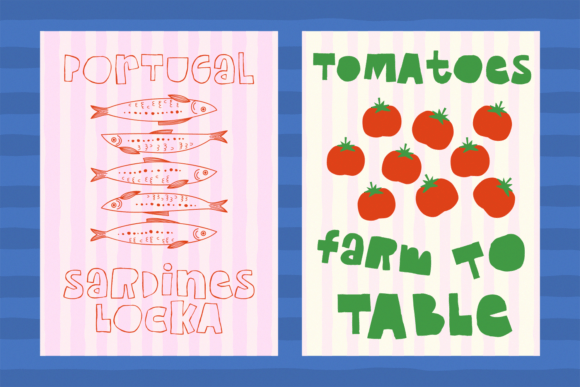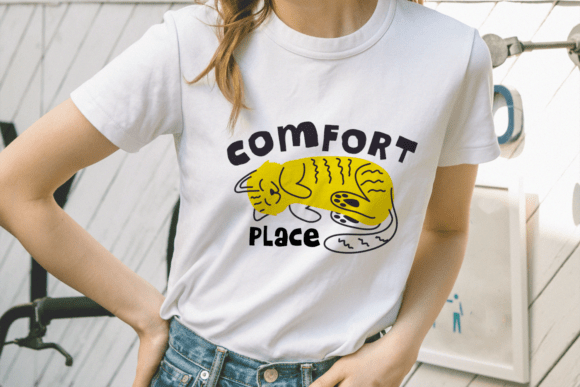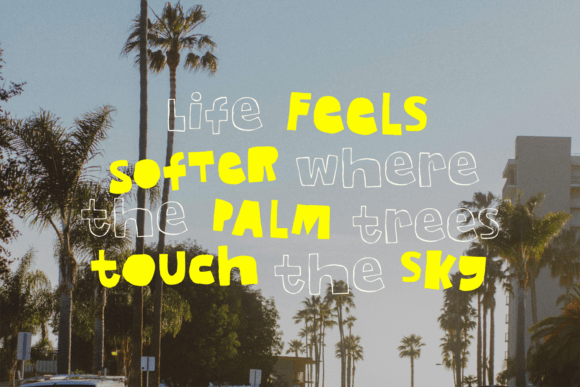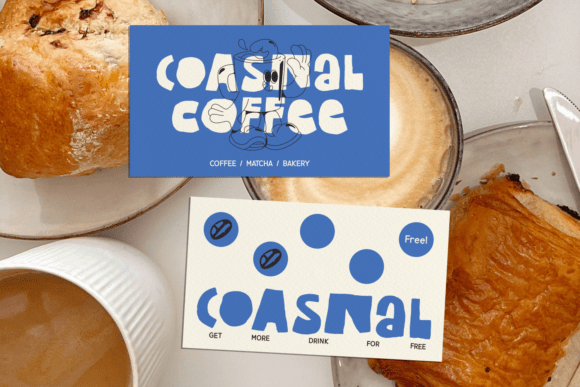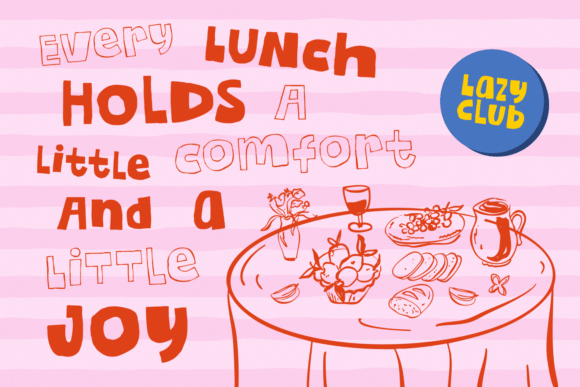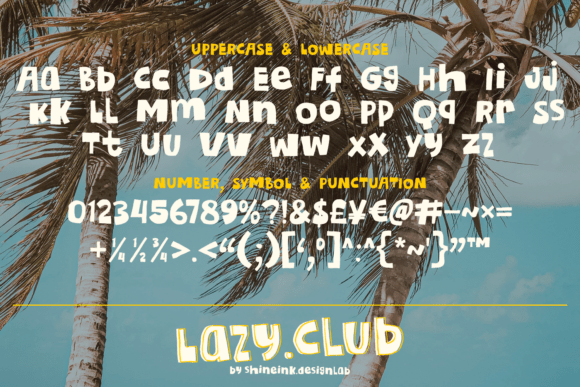
Introduction to Lazy Club Font
Have you ever stared at a blank design canvas, searching for the perfect font to bring your creative project to life? The struggle is real, but today, I’m excited to introduce you to a game-changing typography duo that will make your designs shine – the Lazy Club Font!
Imagine a font that embodies the carefree spirit of a lazy summer day, where imperfections become beautiful quirks and playful irregularities become the norm. This is exactly what the Lazy Club Font offers, with its fun, slightly irregular shapes and expressive letterforms that instantly add personality to your designs.
Key Features of Lazy Club Font
- High-quality design resource suitable for creative projects, including posters, flyers, and brochures.
- Features a unique, modern design with a transparent background, making it easy to use with any background image or color.
Honest Review: Lazy Club Font
I recently stumbled upon the Lazy Club Font while searching for a free download to elevate my creative project. I was drawn to its quirky, laid-back vibe, which seemed perfect for a casual design.
- ✨ The Lazy Club Font is highly customizable, allowing me to adjust the weight, spacing, and even the style to suit my project’s needs.
- ✨ The font is a high-quality design resource, with a smooth, professional feel that’s perfect for print or digital applications.
- ✨ The font includes a range of characters, including international symbols and a transparent background, making it easy to use in various creative contexts.
- ⚠️ Some of the characters, particularly the uppercase letters, can be quite dense and may not be suitable for small-scale designs.
Overall, I’m impressed with the Lazy Club Font. It’s a fun, versatile font that’s perfect for personal projects or small-scale commercial designs. While it has some limitations, its high quality and customizability make it a valuable addition to any designer’s toolkit.
The Lazy Club Font: A High-Quality Design Resource
Tips for Getting the Most Out of the Lazy Club Font
To get the most out of the Lazy Club Font, experiment with different font sizes, colors, and styles. Combine the font with other design elements to create unique and eye-catching designs. The font’s transparent background feature allows for endless design possibilities.
Common Use Cases for the Lazy Club Font
The Lazy Club Font is perfect for creative projects, including logos, posters, and social media graphics. The font’s high-quality design makes it ideal for presentations, documents, and other professional materials. The font’s transparent background feature allows for seamless integration with other design elements, making it perfect for web design and digital projects.